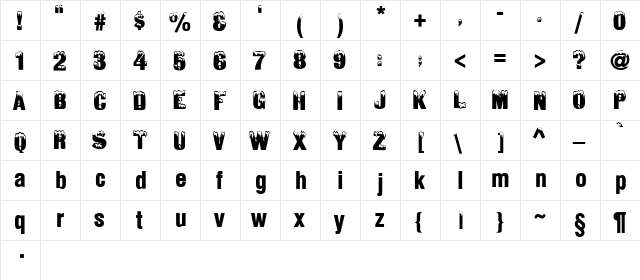
IceSnowNormal Medium
Design Context for IceSnowNormal Typeface
IceSnowNormal is a composed and adaptable typeface that performs quietly and consistently across a wide range of design contexts.